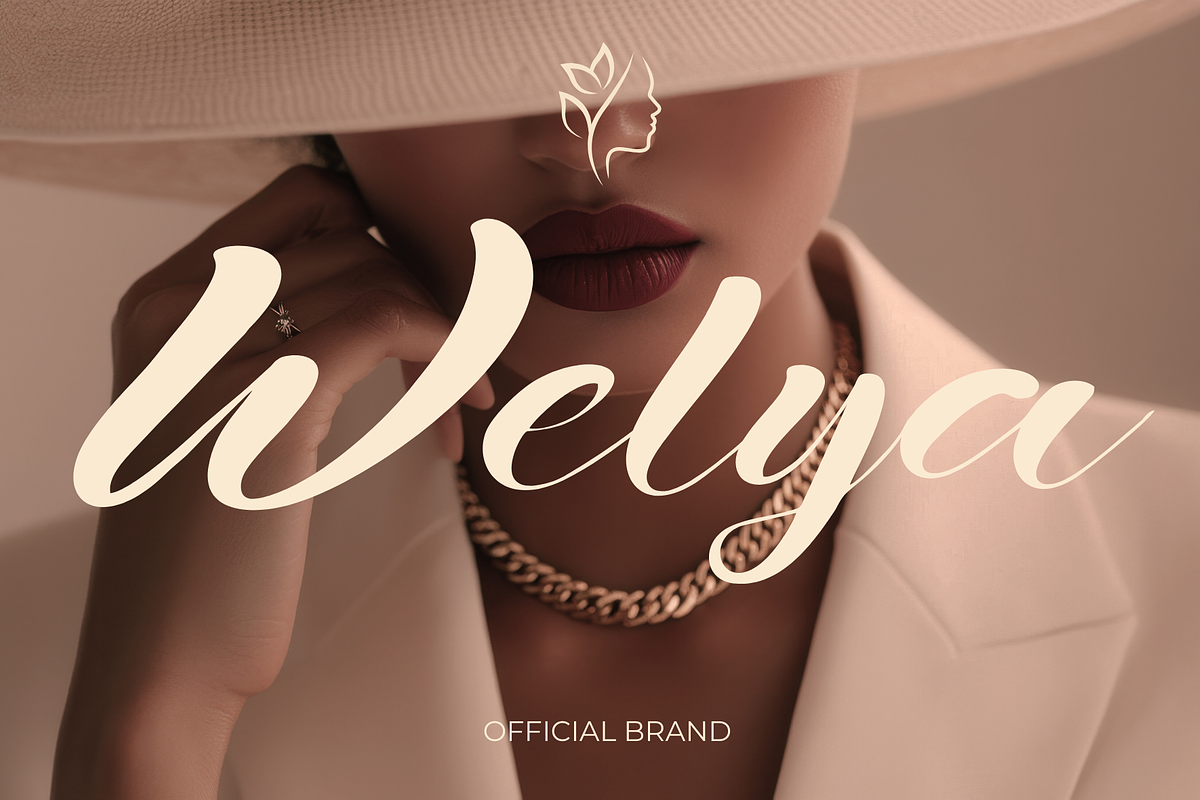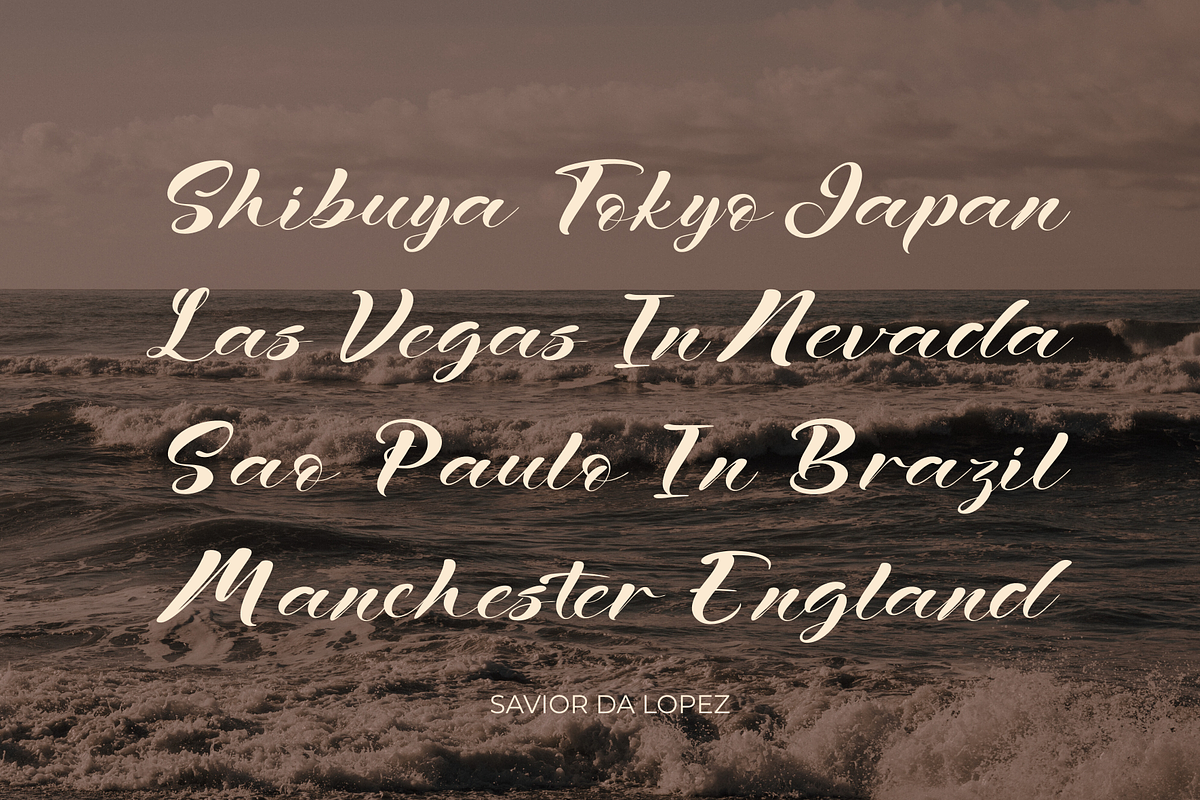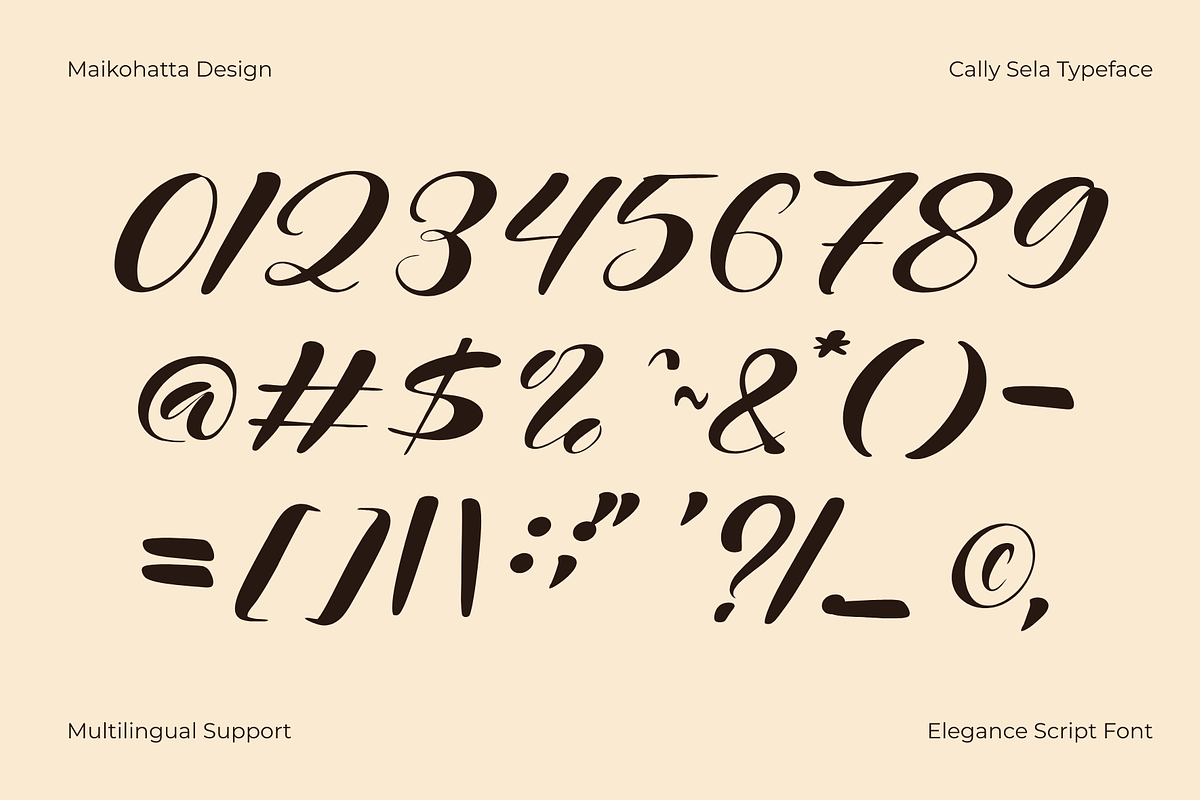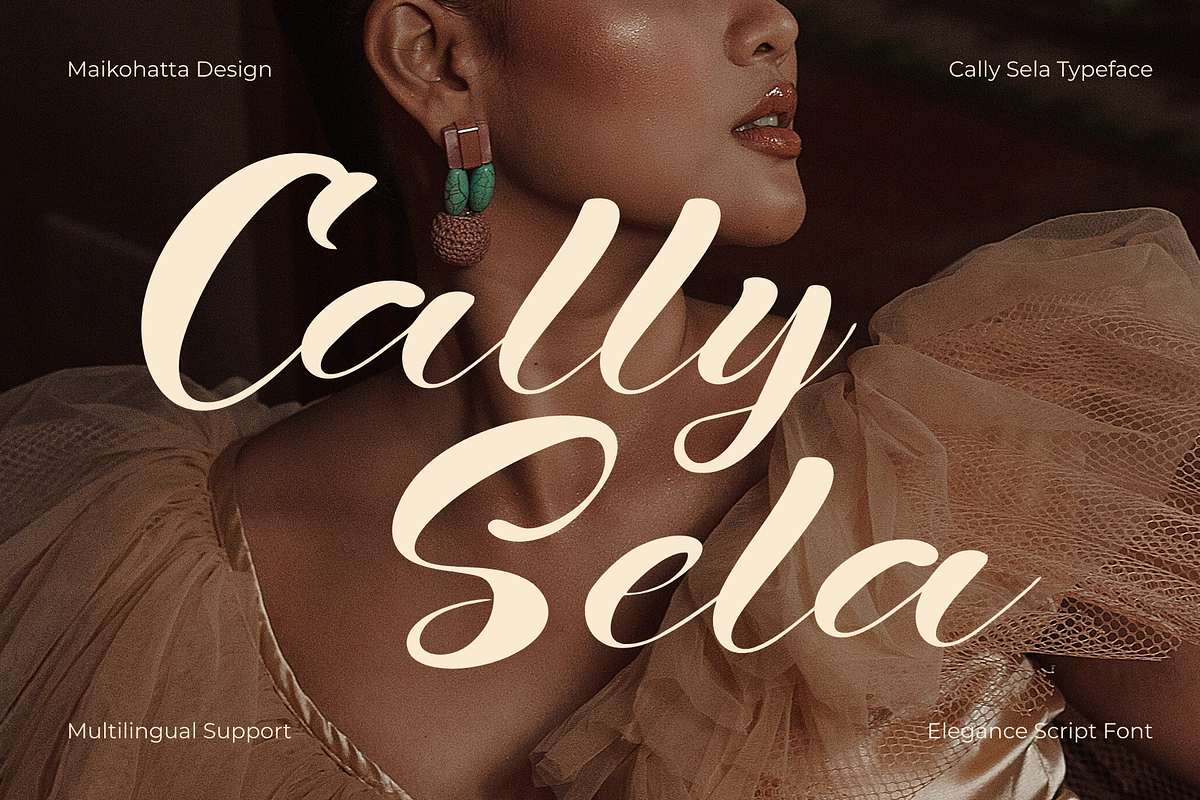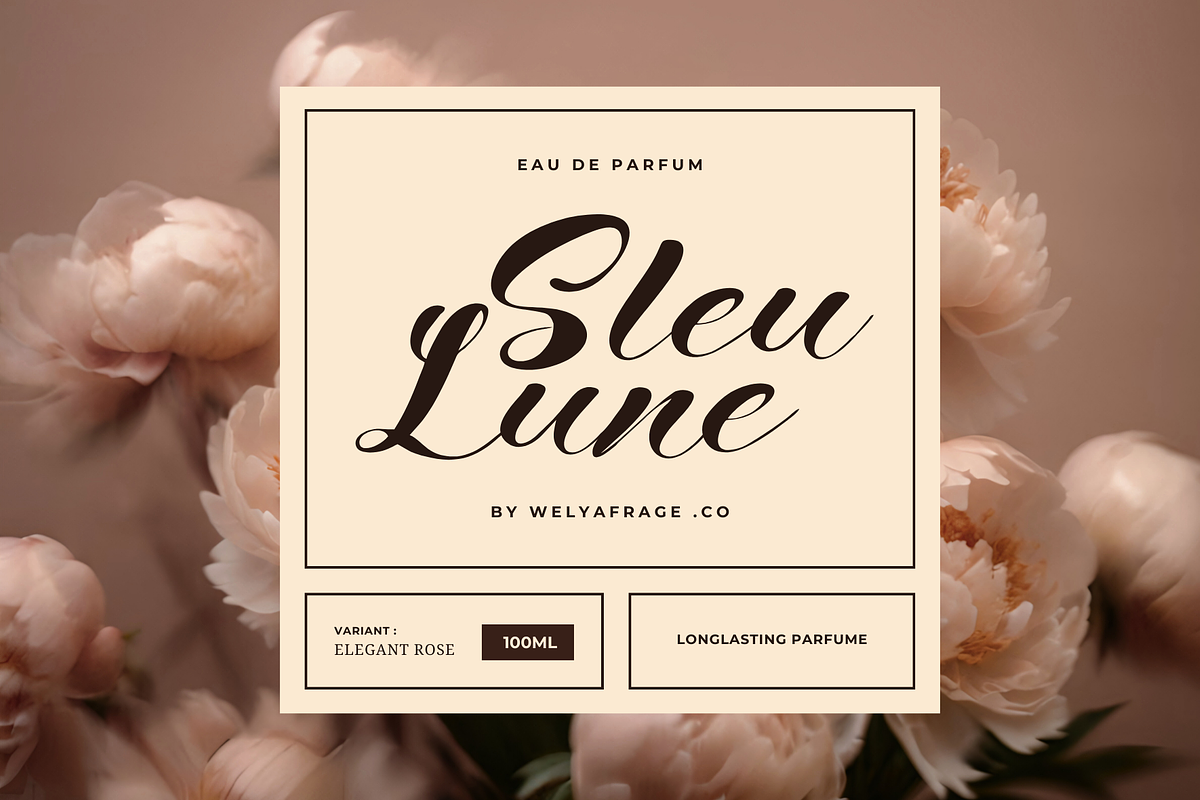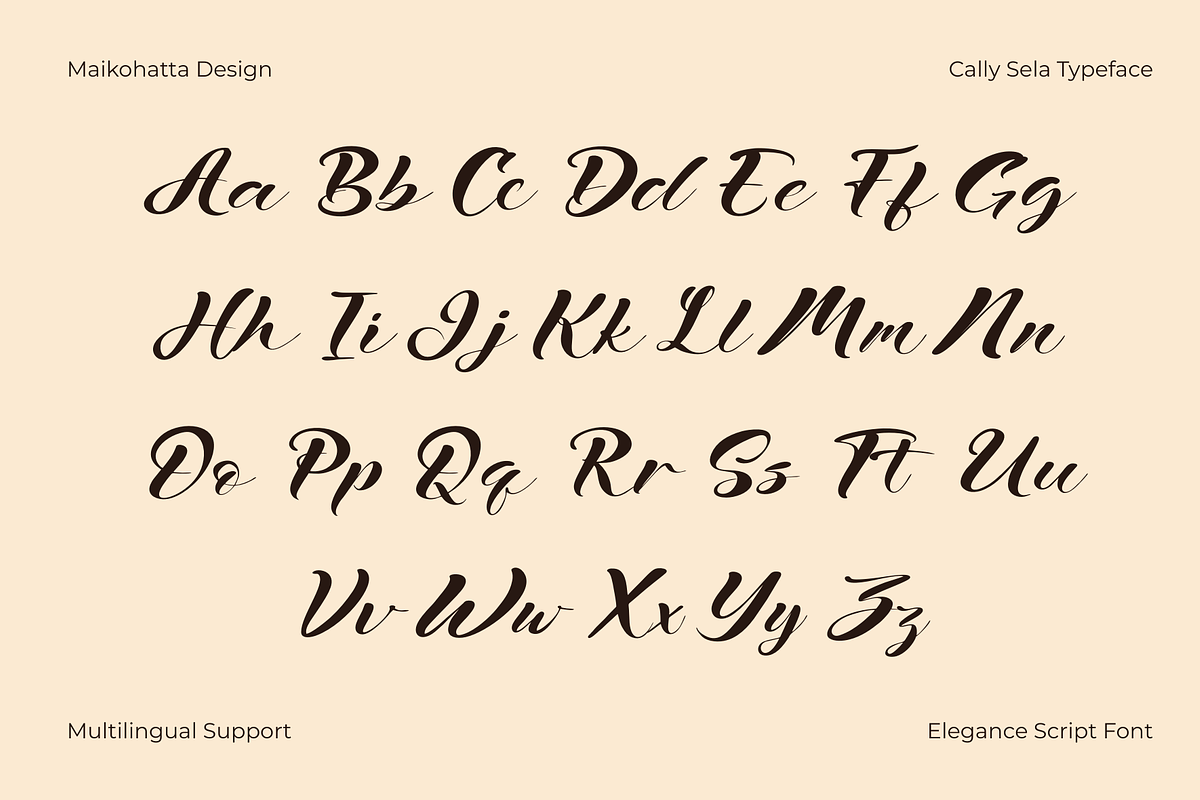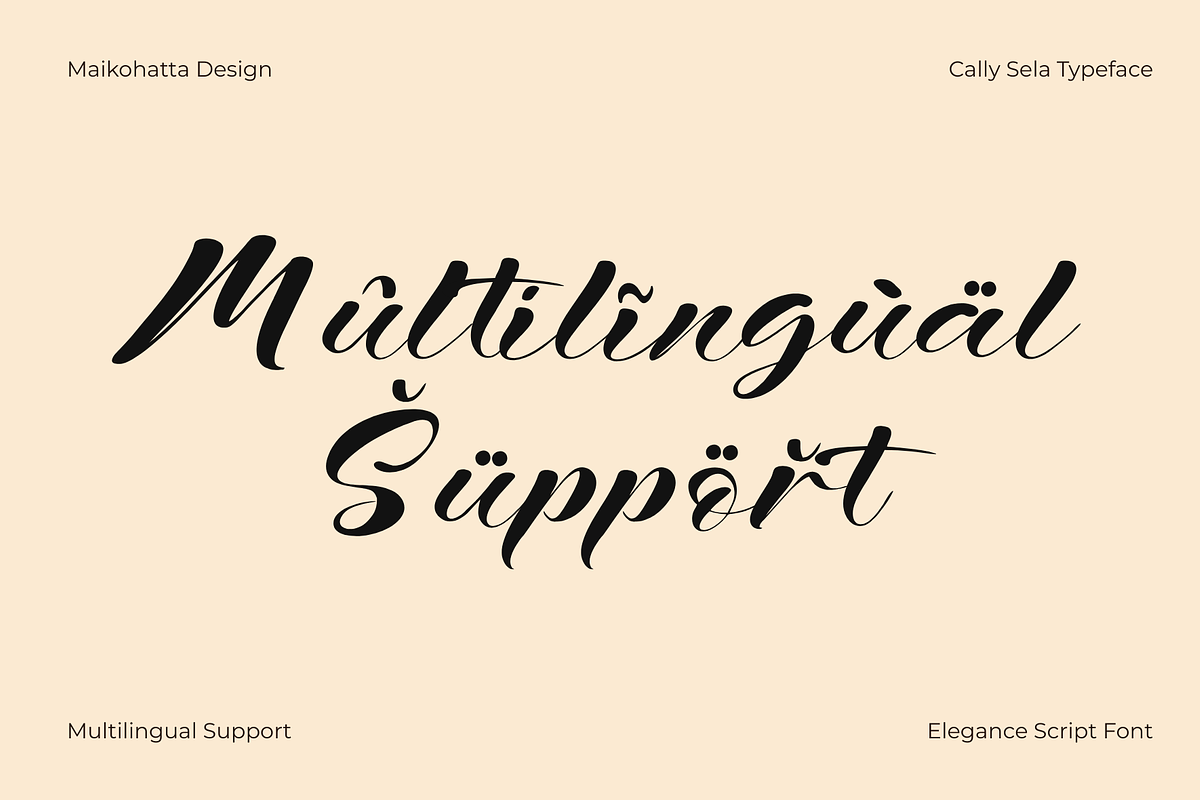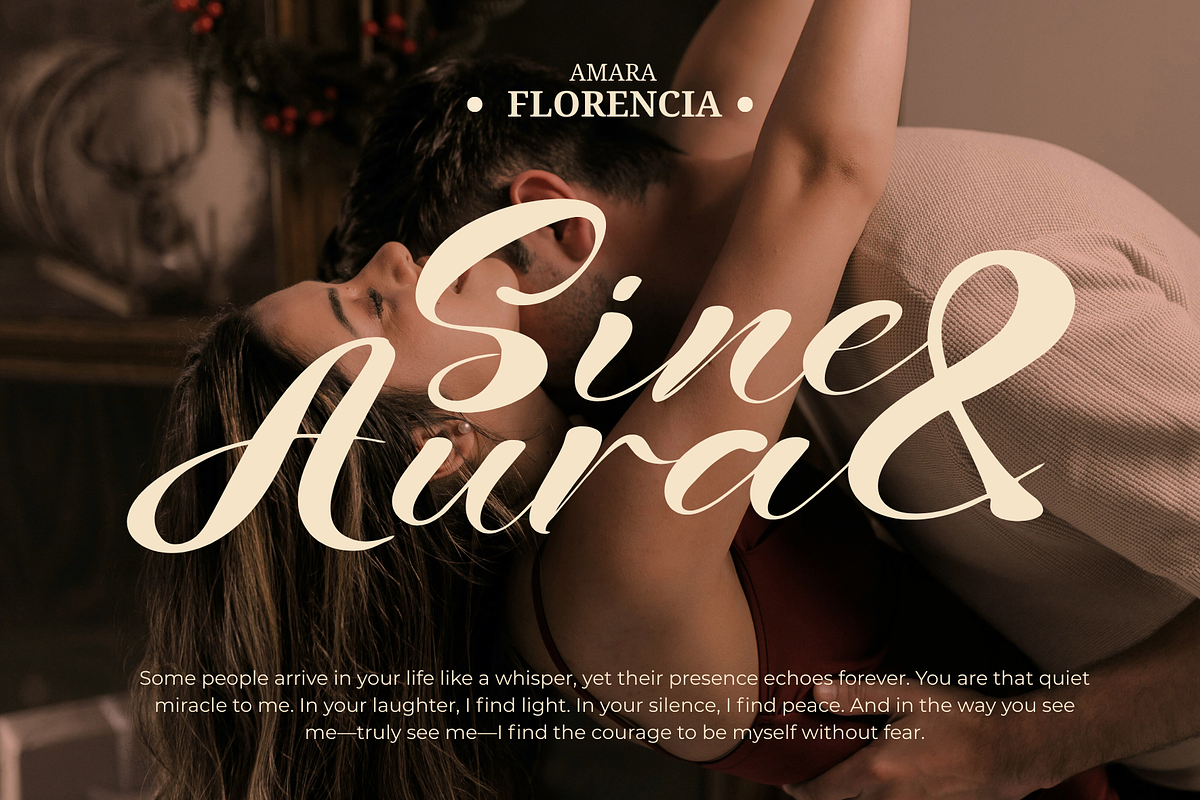
Cally Sela – Modern Calligraphy Font
Cally Sela is an elegant and romantic script typeface, designed to bring beauty and femininity to your designs. It features smooth, flowing strokes, graceful curves, and stylish strokes.
With its handwritten charm and modern sophistication, Cally Sela delivers a timeless aesthetic that feels both soft and confident. This font supports multilingual characters.